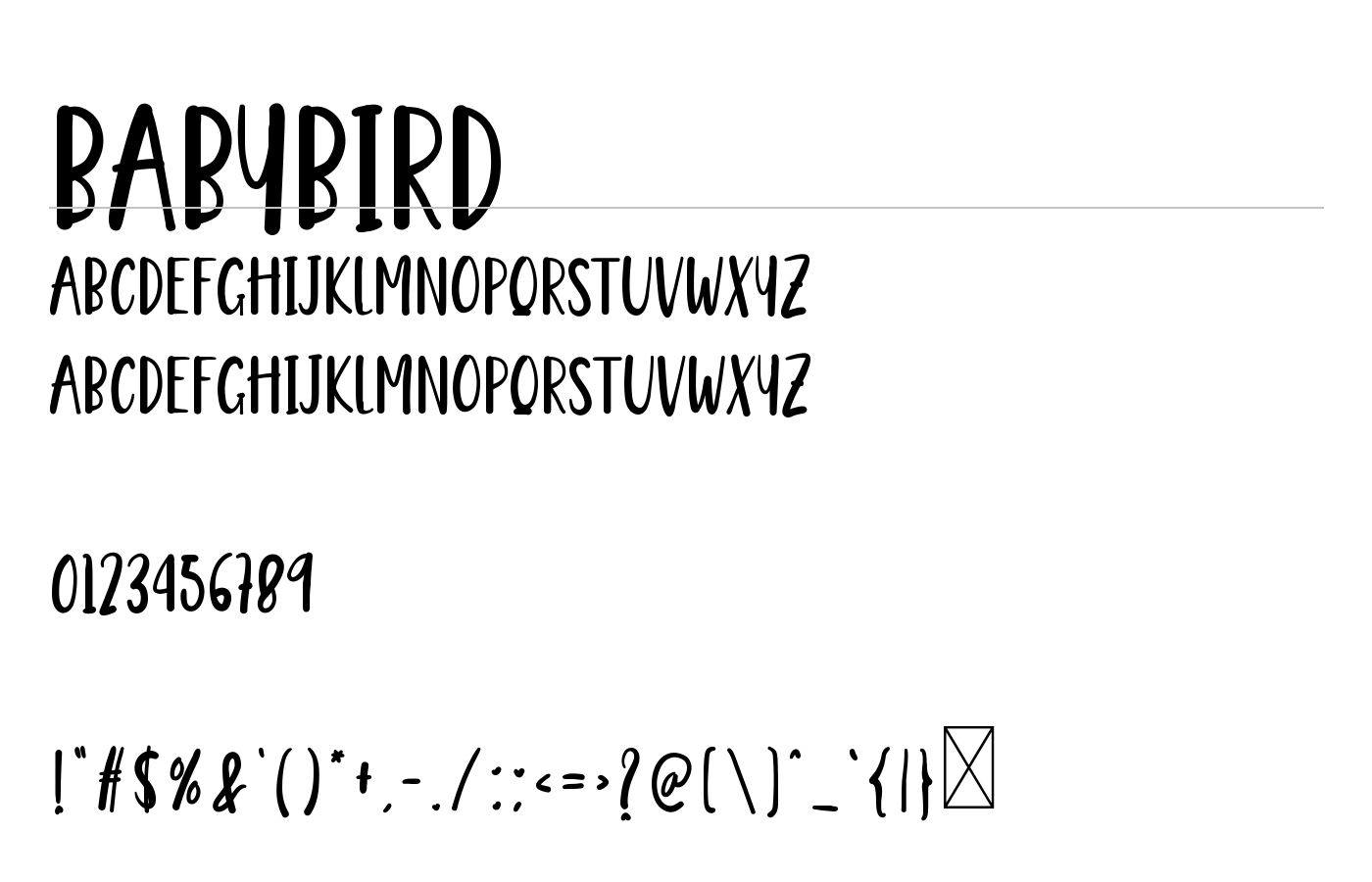
Babybird is a playful and casual sans serif font characterized by its tall, narrow letterforms and hand-drawn feel. Its uneven strokes and slightly quirky shapes create a friendly and approachable vibe, making it ideal for children's products, informal branding, and creative projects that want to convey warmth and fun. This font works best in headlines or short texts where a lively, personal touch is desired.
Babybird Font
About Babybird Font